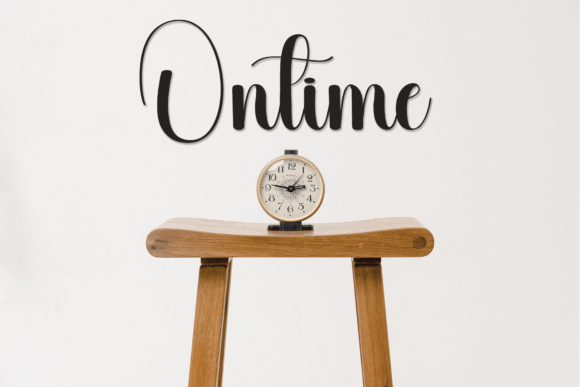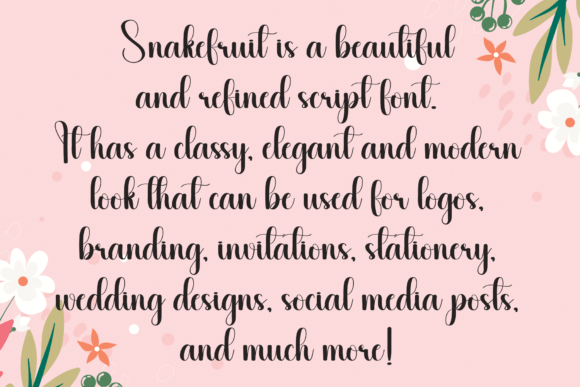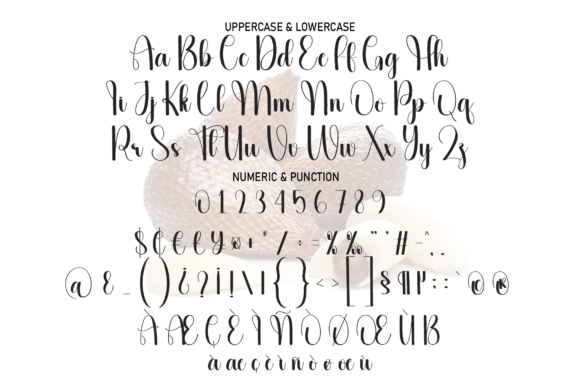
Introduction to Snakefruit Font
Do you remember that moment when you were brainstorming for your next creative project, and the perfect font just didn’t seem to exist? The words on your design board looked dull, and you knew you needed something special to elevate your concept. That’s where the Snakefruit Font comes in – a game-changing design resource that will make your ideas shine.
This elegant handwritten font is not just a pretty face; it’s a high-quality design element that can add a touch of sophistication to any project. With its flowing lines and distinct style, Snakefruit Font is perfect for designers who want to create stunning visuals with a transparent background. Whether you’re working on a branding project, a digital art piece, or a simple social media post, this font is sure to be a valuable addition to your design arsenal.
So, what makes the Snakefruit Font so special? Let’s dive in and explore its unique features, and discover why it’s a must-have for any designer looking to take their projects to the next level.
Key Features of Snakefruit Font
- Unique, modern design with a transparent background, allowing for versatile use.
- Includes a range of glyphs, making it suitable for both body text and title work.
- Designed as a design resource for graphic designers, digital artists, and other creatives.
Honest Review: Snakefruit Font
I recently had the opportunity to work with the Snakefruit Font, and I must say it’s been a great addition to my creative project. The font is designed to have a unique, handwritten feel that adds a personal touch to any design. I appreciate that the font is available for a free download, making it a valuable resource for designers.
The Snakefruit Font is highly customizable, allowing you to adjust the spacing and size to fit your design needs. I also appreciate the transparent background option, which makes it easy to layer the font over other design elements. ✨
- Unique, handwritten feel
However, there are a few limitations to consider. The font may not be suitable for all design projects, particularly those that require a more formal or professional tone. Additionally, the font may not be as legible at smaller font sizes. ⚠️
Overall, I’m impressed with the Snakefruit Font. It’s a great design resource that can add a personal touch to any creative project. With a little creativity, you can achieve high-quality results with this font.
Tips for Getting the Most Out of Snakefruit Font
For optimal results, use the Snakefruit Font on a high-quality image or design. Also, experiment with different font sizes, colors, and styles to find the perfect combination for your project.
The Snakefruit Font is perfect for creating eye-catching titles, headings, and text elements for your design projects. It’s also great for creating social media graphics, posters, and other visual content.